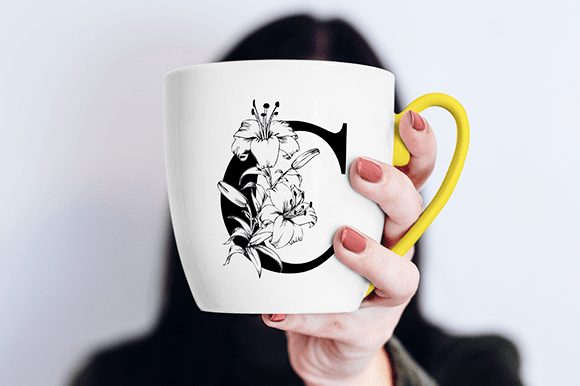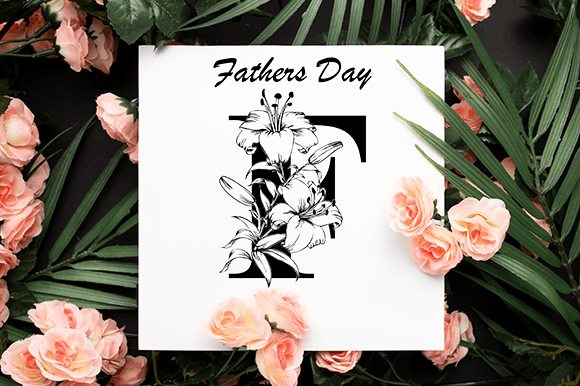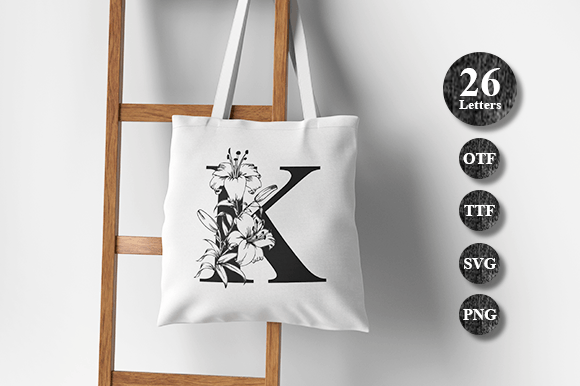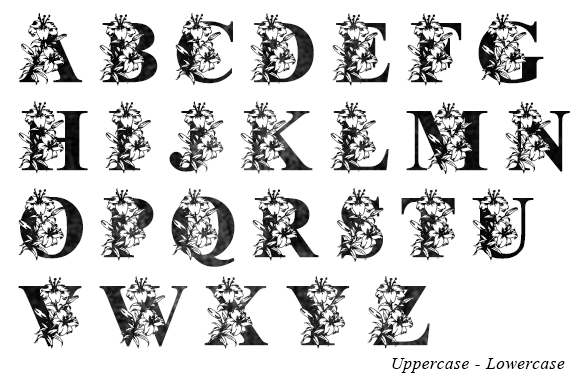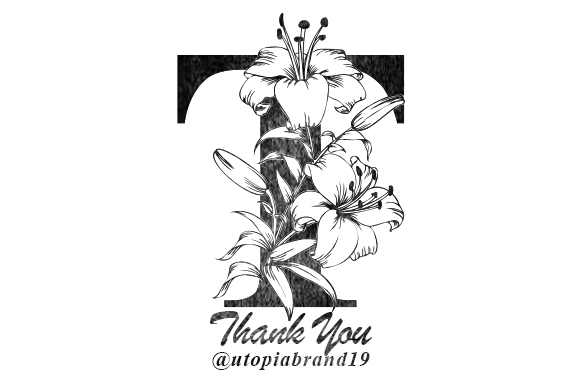
Blossoming Creativity: Introducing Bukhari Flower Monogram Font
Have you ever been stuck in a creative rut, searching for the perfect font to elevate your designs? That’s when I stumbled upon the enchanting Bukhari Flower Monogram Font. Its beautiful, intricate ornaments instantly transported me to a world of elegance and sophistication.
This stunning font is a masterclass in decorative design, perfect for adding a touch of whimsy and romance to your projects. Whether you’re crafting wedding invitations, designing social media posts, or creating greeting cards, the Bukhari Flower Monogram Font is sure to captivate your audience. As a designer, you’ll appreciate the versatility and authenticity of this font, making it an invaluable addition to your toolkit.
Bukhari Flower Monogram Font Key Features
- Unique Characteristic: Features intricate floral patterns and delicate designs, adding a touch of elegance to any text-based project.
- Monogram Style: Includes a range of monogram styles, allowing users to create custom and personalized designs with ease.
- Scalability: Designed to be highly scalable, ensuring that the font remains legible and visually appealing even at large font sizes.
Bukhari Flower Monogram Font Review
Overall, I think the Bukhari Flower Monogram Font is a lovely addition to any project that needs a touch of elegance and sophistication. ✨ The intricate floral details and subtle curves make it perfect for creating beautiful invitations, wedding stationery, or even packaging designs.
Here are some of the things that I particularly like about this font:
- ✨ The unique and intricate design elements that set it apart from other monogram fonts
- ✨ The versatility of the font, which can be used for a variety of projects and themes
- ✨ The high-quality vector files that ensure crisp and clear rendering in any resolution
- ⚠️ The font may not be suitable for projects that require bold or dramatic typography, as it’s more delicate and ornate
- ⚠️ Some users may find the font difficult to read at very small sizes, due to the intricate details
Overall, I think the Bukhari Flower Monogram Font is a great choice for designers who want to add a touch of luxury and sophistication to their projects. With its unique design elements and high-quality vector files, it’s a great addition to any font collection.
Use the Bukhari Flower Monogram Font for formal events, weddings, or anniversaries.
Combine the font with floral patterns or other elegant designs for a cohesive look.
Experiment with different font sizes and colors to add emphasis to your text.
Anniversary and birthday cards
Formal event invitations and programs
Alternative Monogram Fonts for Designers